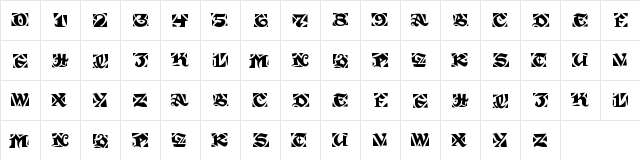
Sir Guppy Regular
| Designer | Ben Dunkle |
Design Context for Sir Guppy Typeface
Sir Guppy is a composed and adaptable typeface that performs quietly and consistently across a wide range of design contexts.